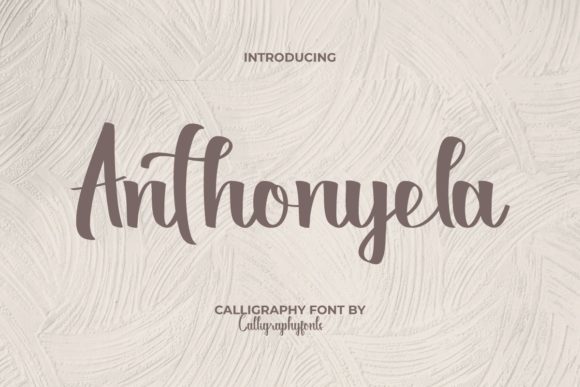
The Designer’s Delight: Exploring the Elegance of Anthonyela Font
I’ll never forget the time I was working on a wedding invitation project, and my client asked for a font that was both elegant and bold. I scoured the internet, tried out countless fonts, but nothing seemed quite right. That was until I stumbled upon Anthonyela Font. With its classic and elegant look, it was love at first sight! In this article, I’ll share my experience with Anthonyela, its features, and how to make the most of this beautiful font.
What Makes Anthonyela Special?
Anthonyela is a bold calligraphy script font that exudes sophistication and style. Its elegant look makes it perfect for modern projects, blogs, headings, invitations, labels, photography, signs, and more! One of the standout features of Anthonyela is that it’s PUA encoded, which means you can access all the glyphs and swashes with ease.
Here’s what I love about Anthonyela:
• ✨ Elegant and classic look that’s perfect for high-end projects
• 💫 Highly versatile and can be used for a variety of design projects
• 🎨 Beautifully crafted with attention to detail
While Anthonyela is an excellent font, there are a few minor quirks to be aware of:
• ⚠️ Some users may find the font a bit too bold for certain projects
• 🤔 Limited availability of certain characters, but this can be overcome with glyph exploration
Exploring OpenType Features
Anthonyela is an OpenType font, which means it comes with a range of features that can enhance your design. Some of these features include:
• Stylistic alternates: offers alternative characters for varied typography
• Swashes: adds flair to your text with beautiful swashes
• Glyphs: provides access to a range of characters and symbols
The Story Behind Anthonyela
Anthonyela was designed with the intention of creating a bold and elegant script font that would meet the needs of modern designers. The designer aimed to create a font that was both classic and sophisticated, with a touch of luxury. With its PUA encoding and range of OpenType features, Anthonyela has become a go-to font for designers around the world.
What is PUA encoding? PUA (Private Use Area) encoding allows font designers to include additional characters and glyphs that aren’t part of the standard Unicode character set.